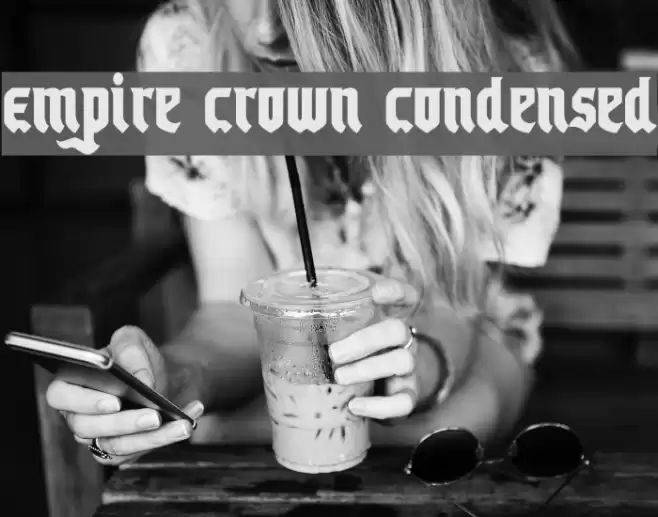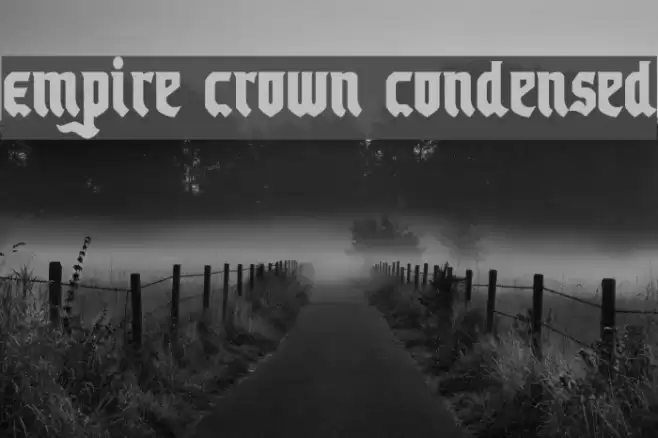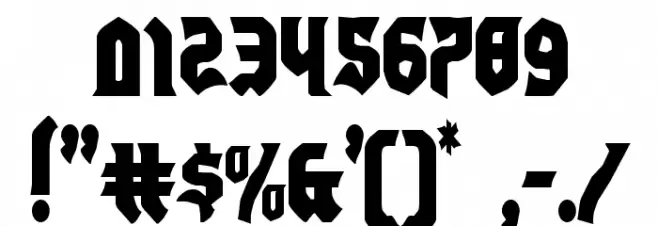
Empire Crown Condensed Font
Empire Crown Condensed Description
This font features a bold and striking design with a strong presence. The characters are condensed, giving a compact and powerful look. The style is reminiscent of traditional blackletter fonts, with sharp angles and a gothic flair. The uppercase and lowercase letters maintain a consistent weight, contributing to a uniform appearance. The numerals and special characters are designed to match the boldness of the letters, ensuring a cohesive look across all text. This font is ideal for projects that require a dramatic and impactful visual style.
A bold, condensed blackletter-style font with a dramatic and impactful design from Uncategorized fonts.
- Proposed Projects: Ideal for posters, branding, logos, and any design requiring a strong, gothic aesthetic.
- Character Spacing: Tight
- Overall Style: Gothic, Decorative